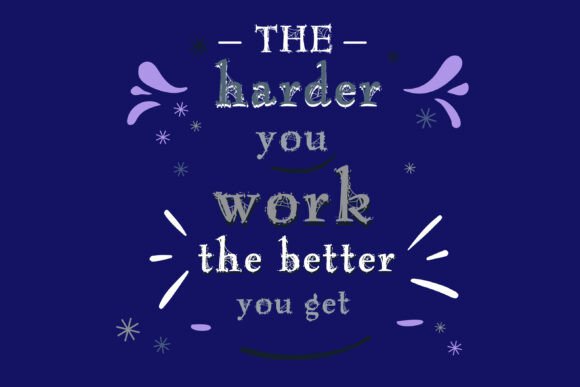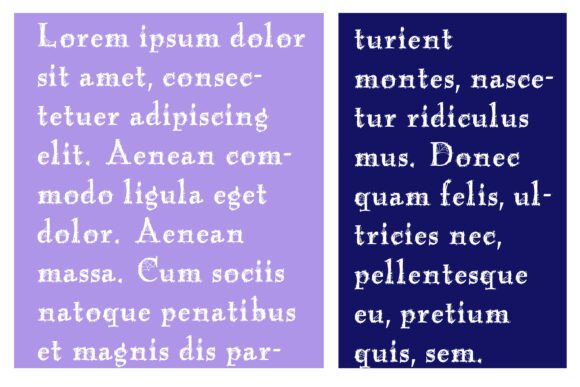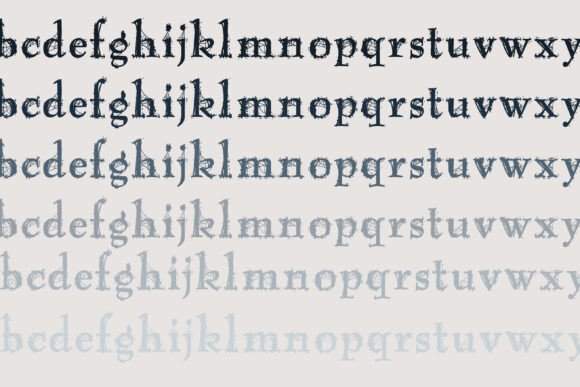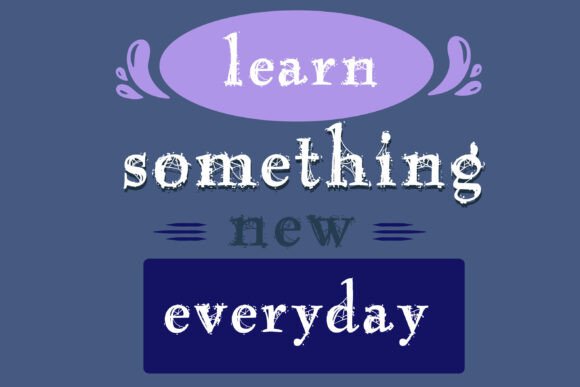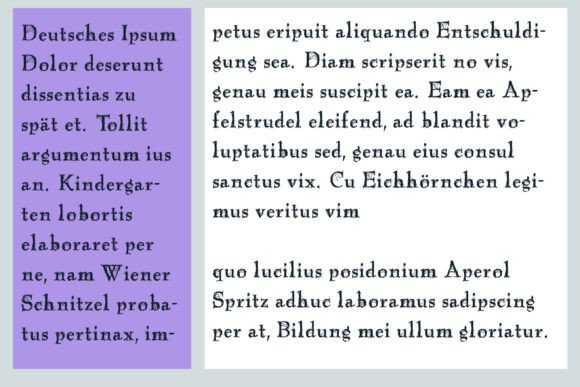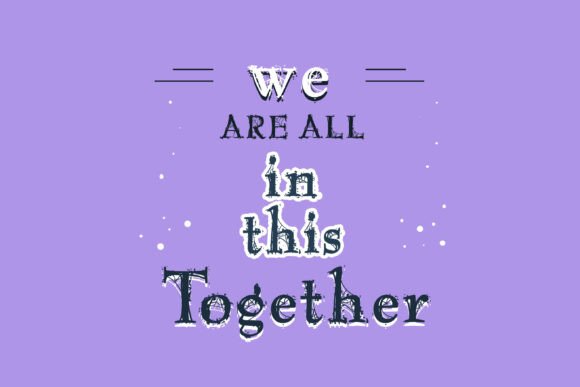
Unleash the Eerie Charm of Antique Webbing Font: A Hand-Crafted Serif for Designers and Crafters
In the realm of typography, few fonts evoke the same sense of eerie fascination as the Antique Webbing Font. This hand-crafted serif font is a masterpiece of texture, grunge, and intricate webbing, making it a perfect choice for designers and crafters looking to add a touch of macabre whimsy to their projects. In this article, we’ll delve into the world of hand-crafted fonts, explore the unique characteristics of Antique Webbing Font, and discuss its various uses in design and crafting.
A hand-crafted font is a typeface that is designed to mimic the look and feel of handwritten text. Unlike digital fonts, which are created using software, hand-crafted fonts are often drawn by hand using traditional mediums like ink, watercolor, or even calligraphy. This process gives hand-crafted fonts a unique, organic feel that is hard to replicate with digital fonts.
Hand-crafted fonts can range from formal and elegant to informal and playful. They are often used for special occasions, such as invitations, greeting cards, and wedding announcements, where a personal touch is desired. However, they can also be used in a variety of other contexts, including branding, packaging, and digital media.
The Unique Charm of Antique Webbing Font
Antique Webbing Font is a standout example of a hand-crafted serif font. Its intricate texture, grunge, and webbing details give it a creepy, old-world charm that is sure to captivate designers and crafters. The font’s serif design adds a touch of sophistication, while its hand-crafted imperfections make it feel organic and authentic.
One of the most striking features of Antique Webbing Font is its webbing detail. The font’s designer has meticulously crafted a intricate network of lines and threads that resemble spider webs. This unique feature adds a level of depth and visual interest to the font, making it perfect for designs that require a sense of complexity and texture.
Uses of Antique Webbing Font
Antique Webbing Font is a versatile typeface that can be used in a variety of design and crafting projects. Here are a few ideas to get you started:
- Invitations and Greeting Cards: The font’s formal, yet eerie charm makes it perfect for invitations, greeting cards, and other special occasion stationery.
- Branding and Packaging: Antique Webbing Font’s unique texture and webbing details make it a great choice for brands looking to add a touch of whimsy and personality to their packaging and branding materials.
- Digital Media: The font’s distressed, grungy texture makes it perfect for digital media, such as social media graphics, blog posts, and website headers.
- Crafting and Scrapbooking: Antique Webbing Font’s hand-crafted feel makes it a great choice for crafters and scrapbookers looking to add a personal touch to their projects.
Tips for Using Antique Webbing Font
Here are a few tips for using Antique Webbing Font in your design and crafting projects:
- Use it sparingly: Due to its intricate details and texture, Antique Webbing Font can be overwhelming in large blocks of text. Use it sparingly to add emphasis and visual interest to your designs.
- Pair it with contrasting fonts: Antique Webbing Font’s unique texture and webbing details make it a great choice for headlines and titles. Pair it with a contrasting font to create visual interest and hierarchy.
- Experiment with colors: The font’s distressed, grungy texture makes it perfect for experimenting with different colors and textures. Try pairing it with bold, bright colors or subtle, muted tones to create a unique look.
Antique Webbing Font is a unique and captivating hand-crafted serif font that is sure to add a touch of eerie charm to any design or crafting project. Its intricate texture, grunge, and webbing details make it a standout choice for designers and crafters looking to add a personal touch to their work. With its versatility and range of uses, Antique Webbing Font is a must-have for anyone looking to add a little bit of macabre whimsy to their designs.